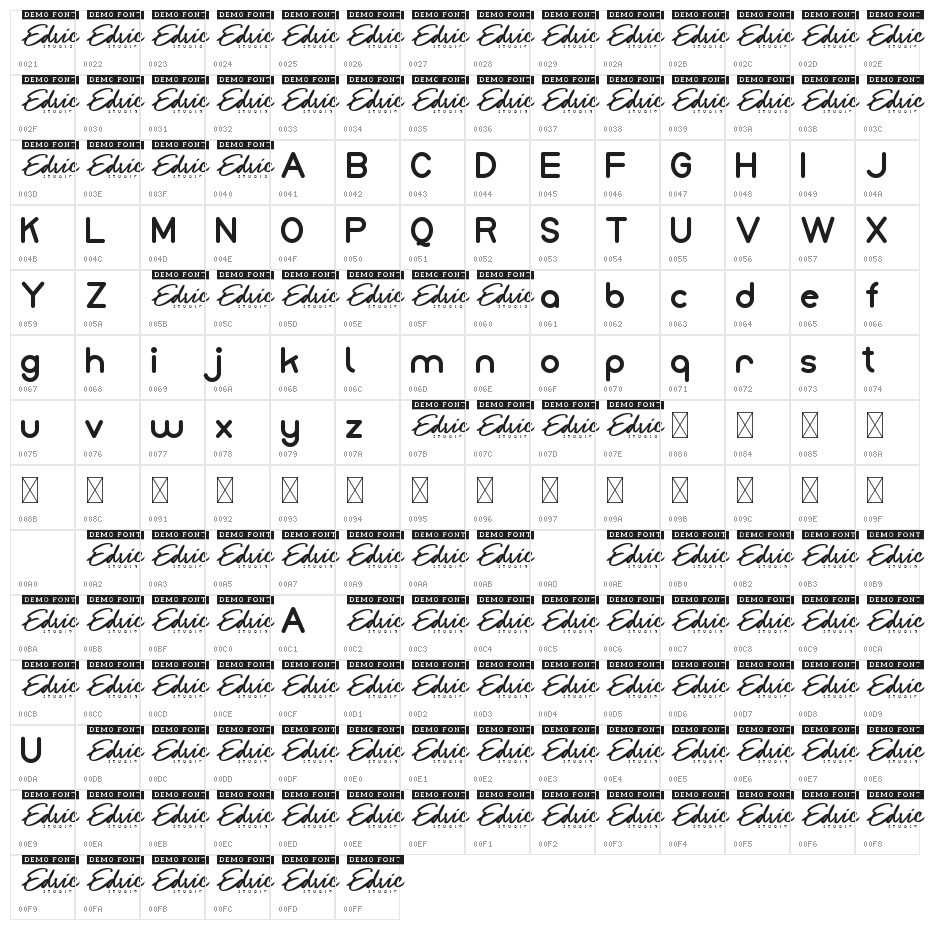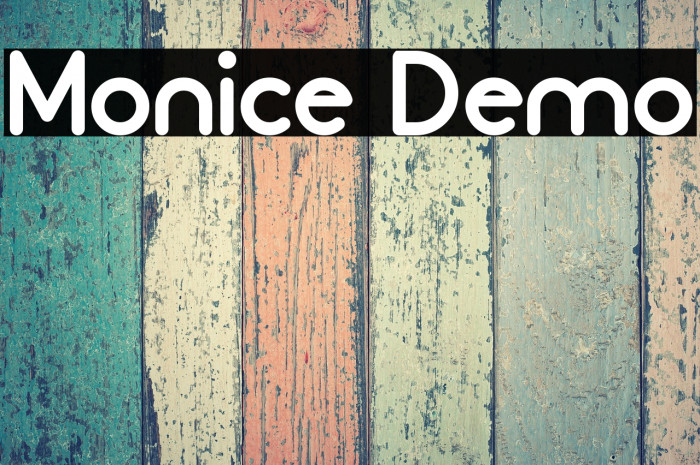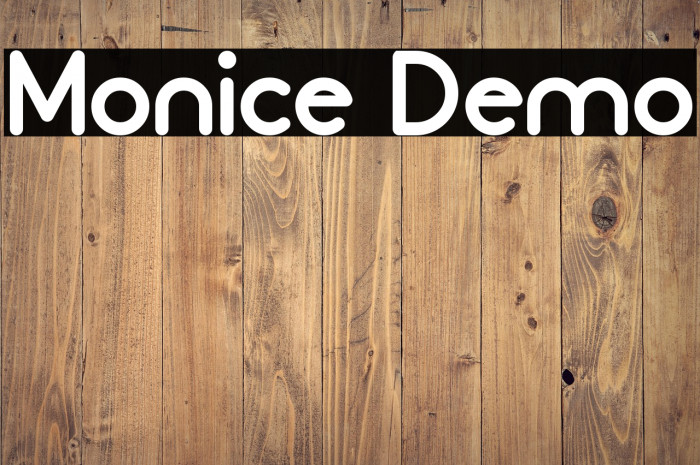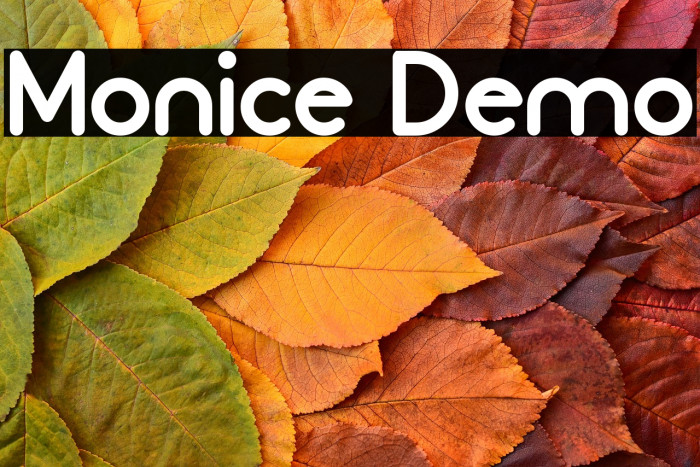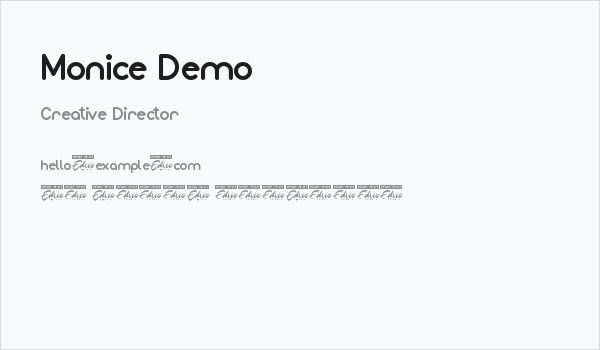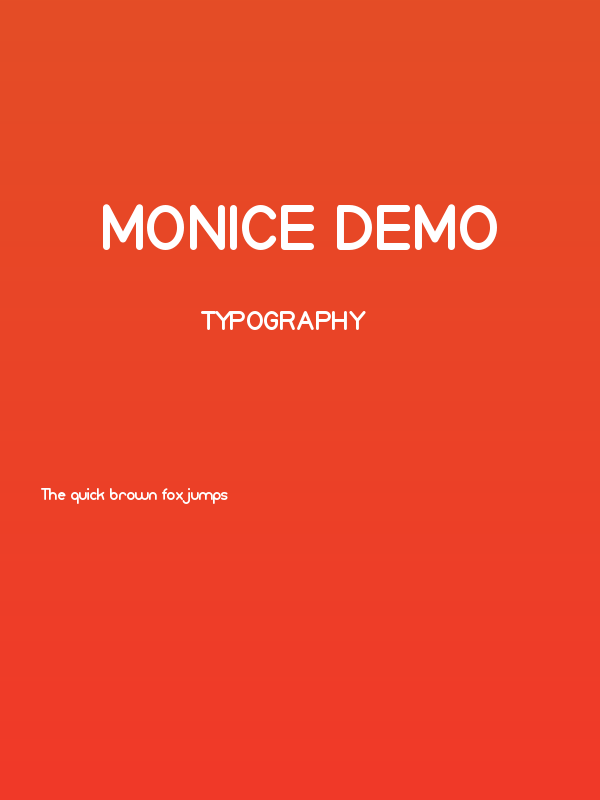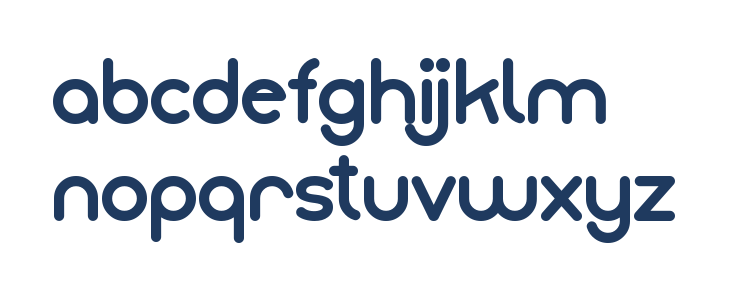
Monice Demo Font
Monice Demo Description
This font features a playful and rounded design with smooth curves and a friendly appearance. The uppercase letters are bold and consistent, maintaining a uniform height and width, which gives them a balanced look. The lowercase letters follow the same rounded style, with some characters like 'g' and 'j' having distinctive loops that add to the font's charm. The numbers are clear and easy to read, matching the overall style of the alphabet. Special characters are included, maintaining the same rounded and approachable design. This font is ideal for projects that require a warm and inviting feel, such as children's books, playful branding, or casual invitations.
| Overall Style | Playful |
| Use Case | Headlines, Logos, Invitations |
| Proposed Projects | Children's books, playful branding, casual invitations, greeting cards. |